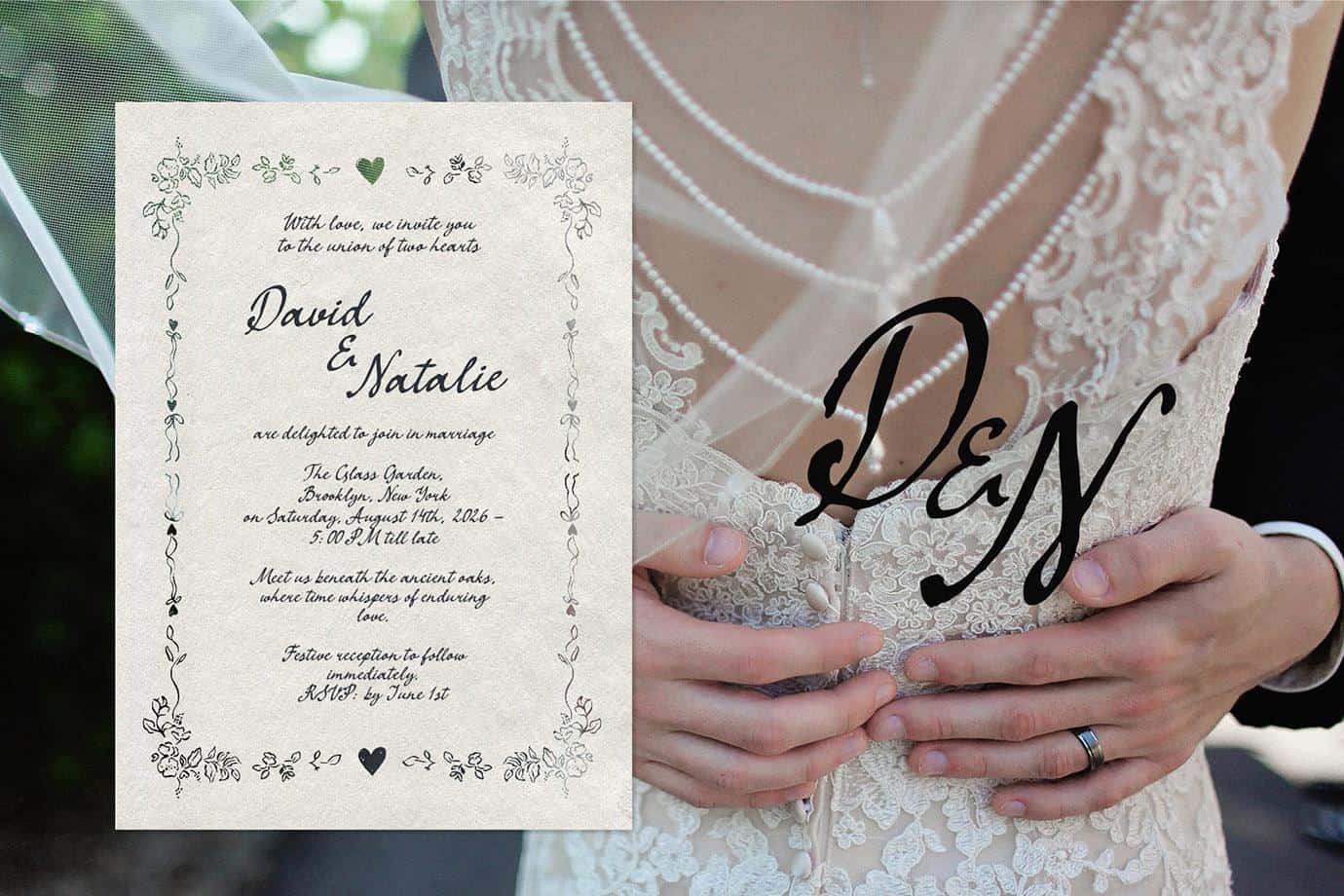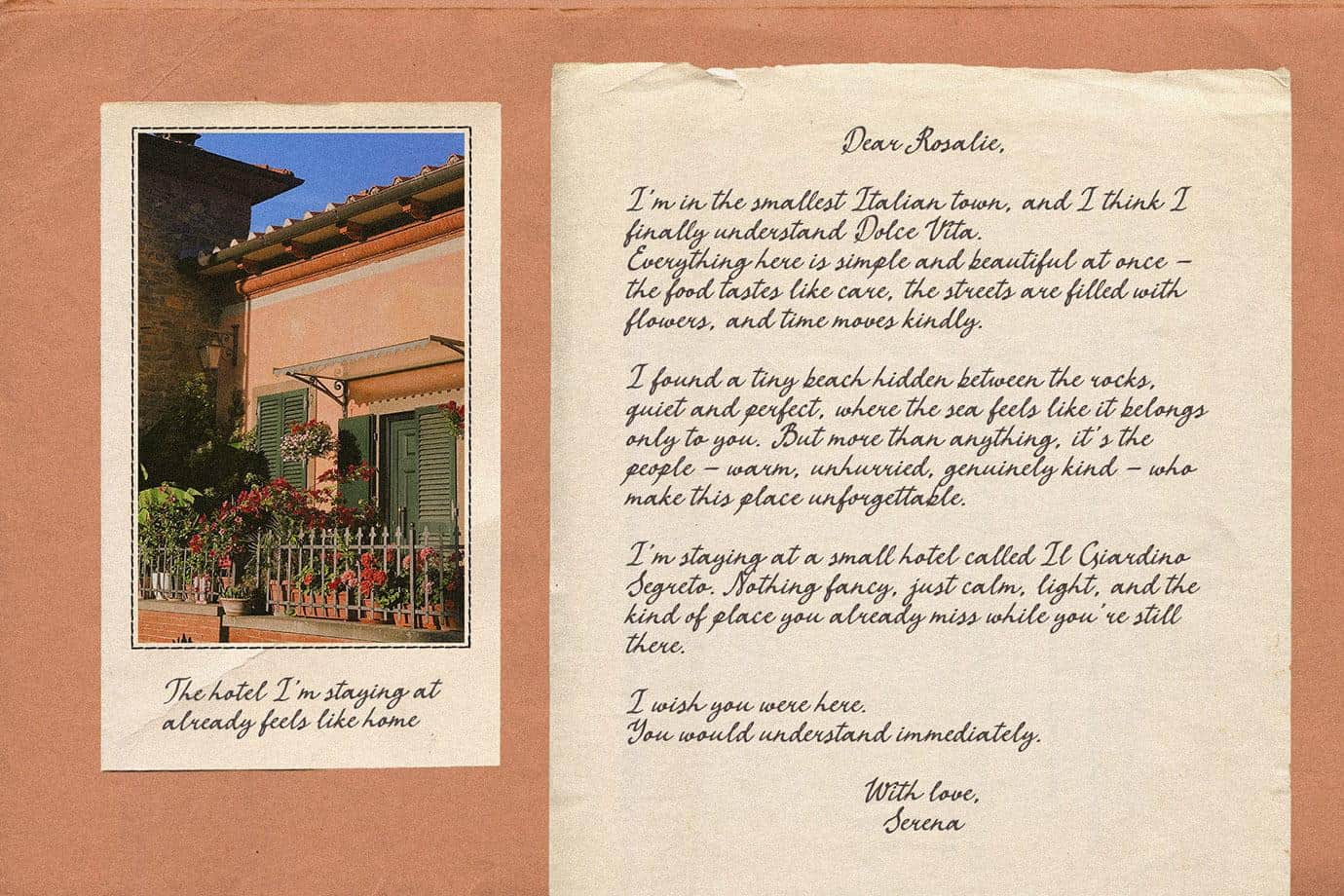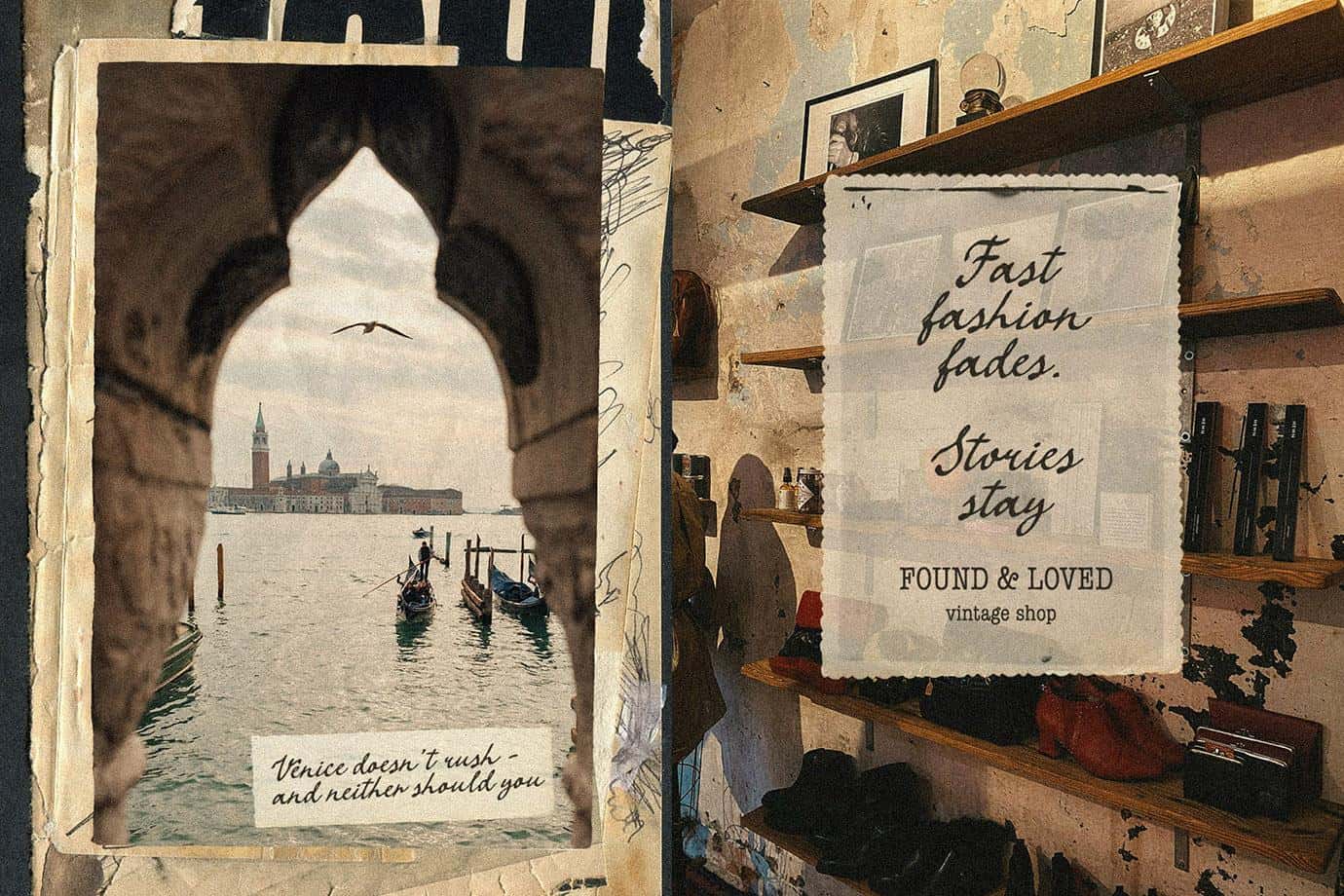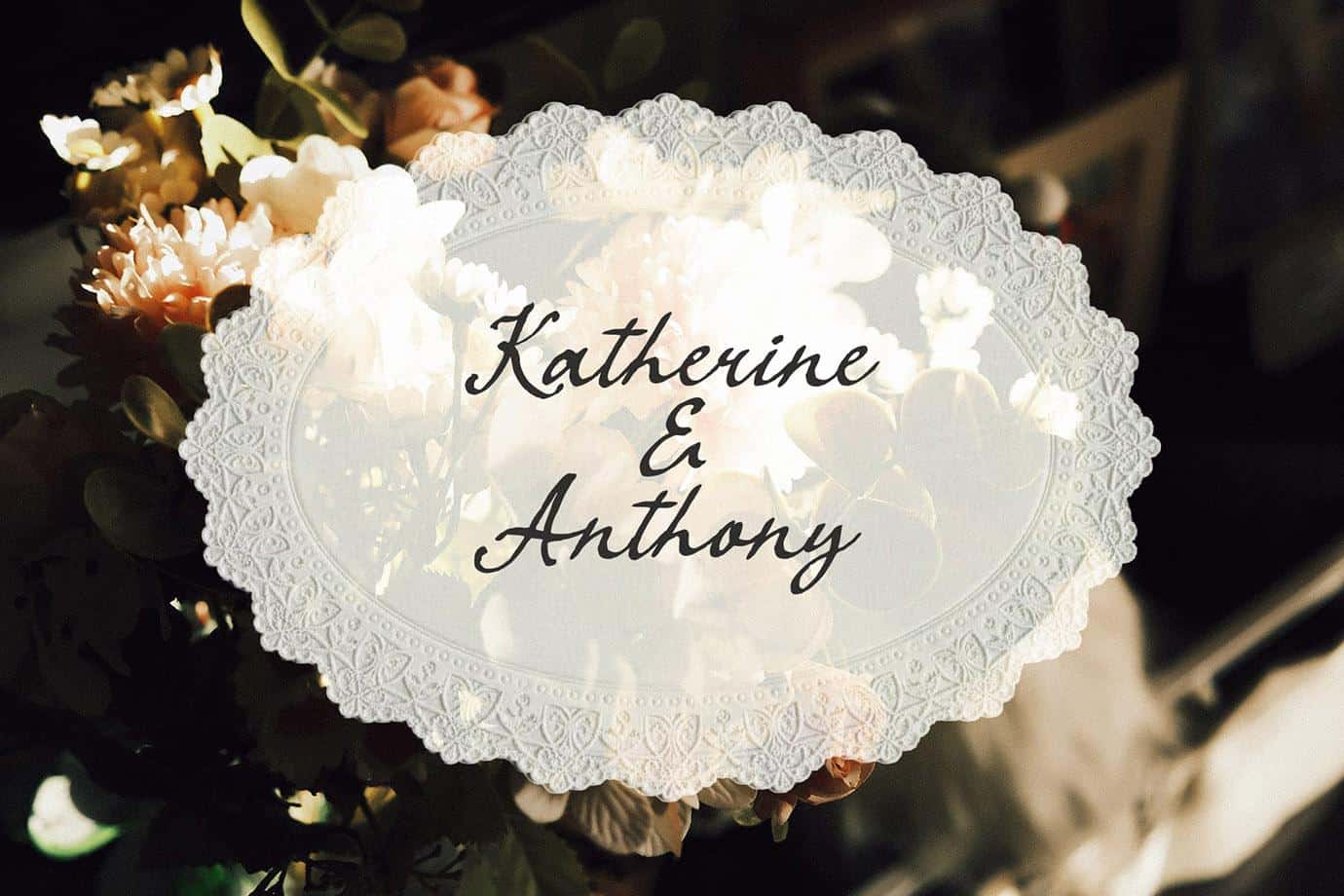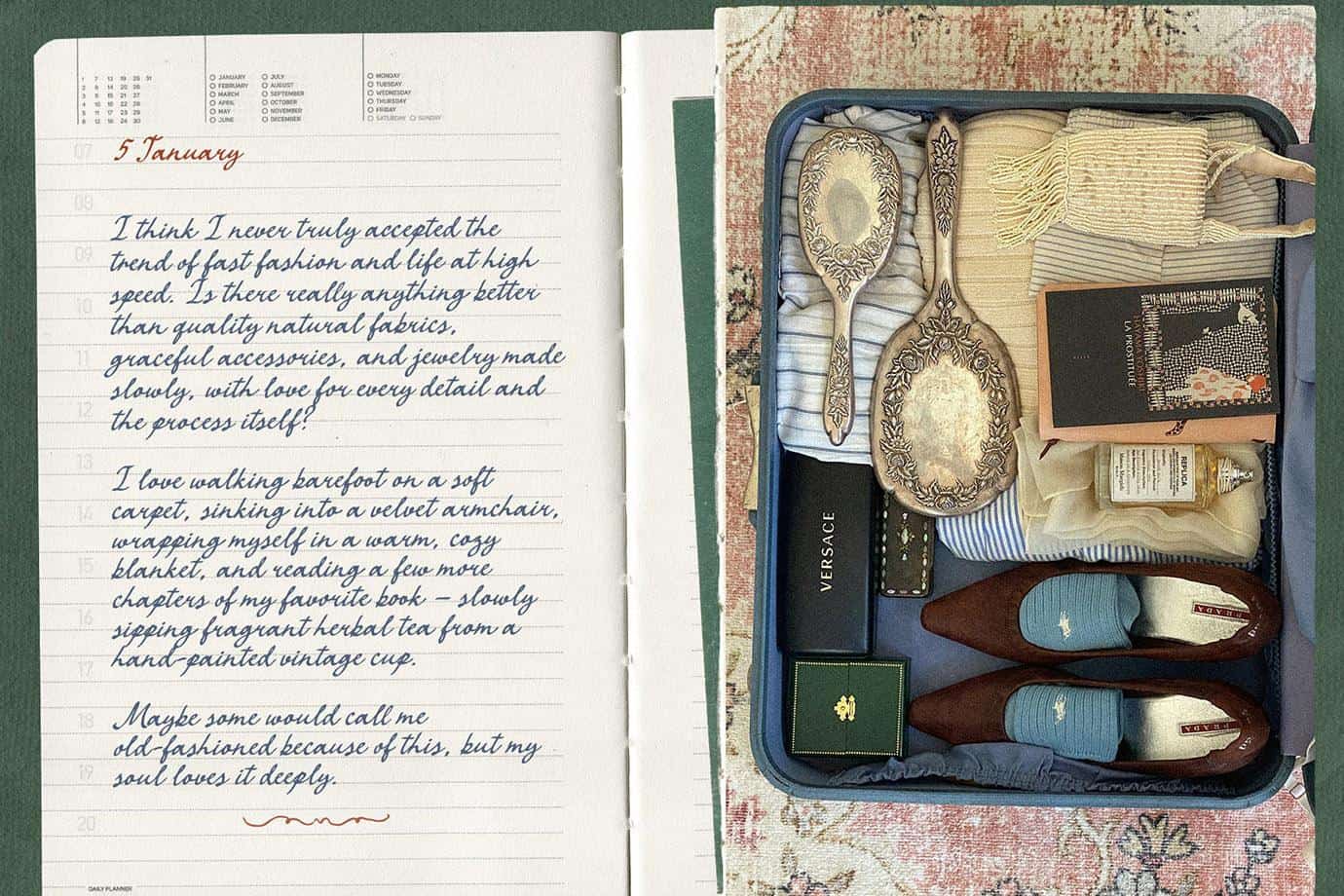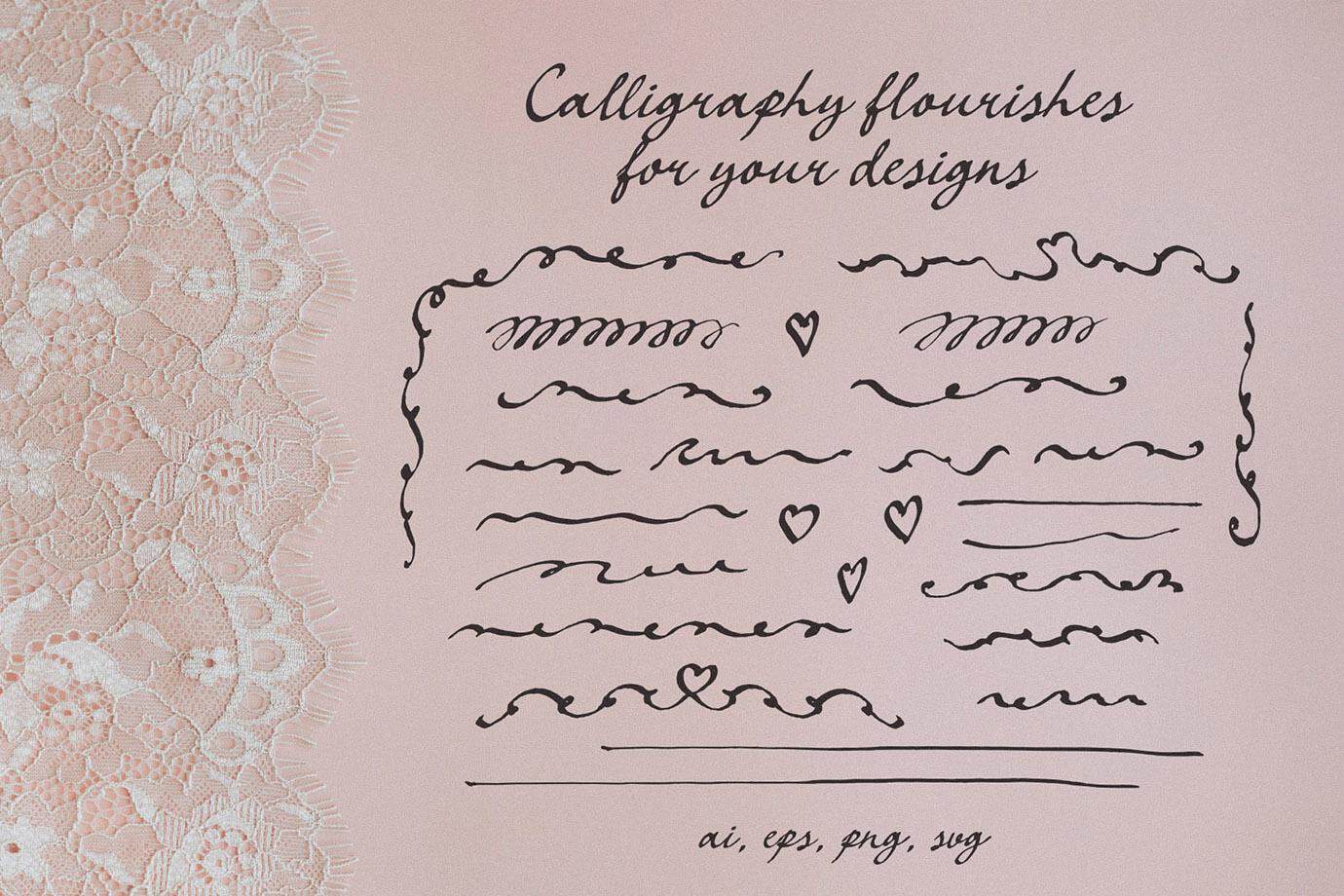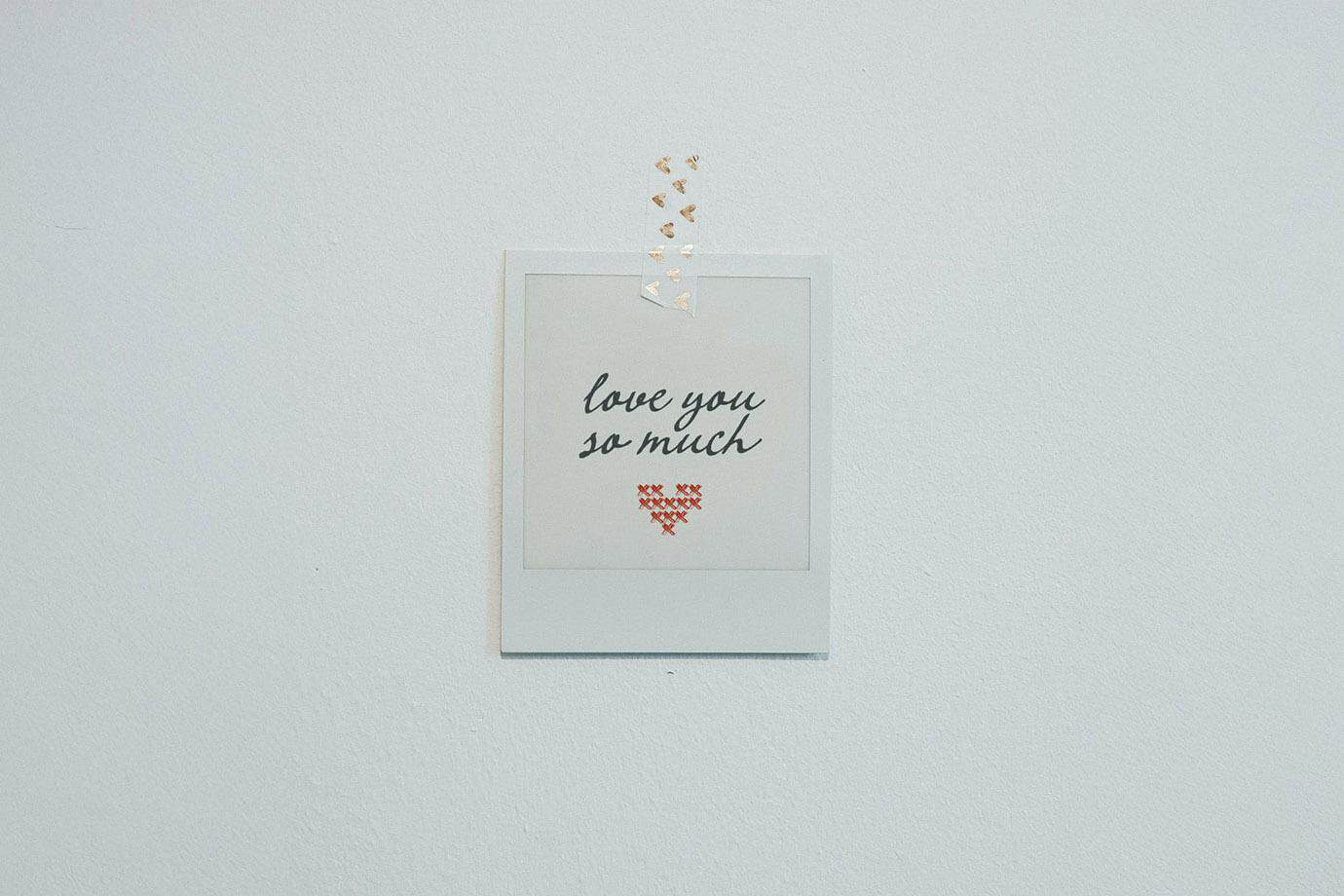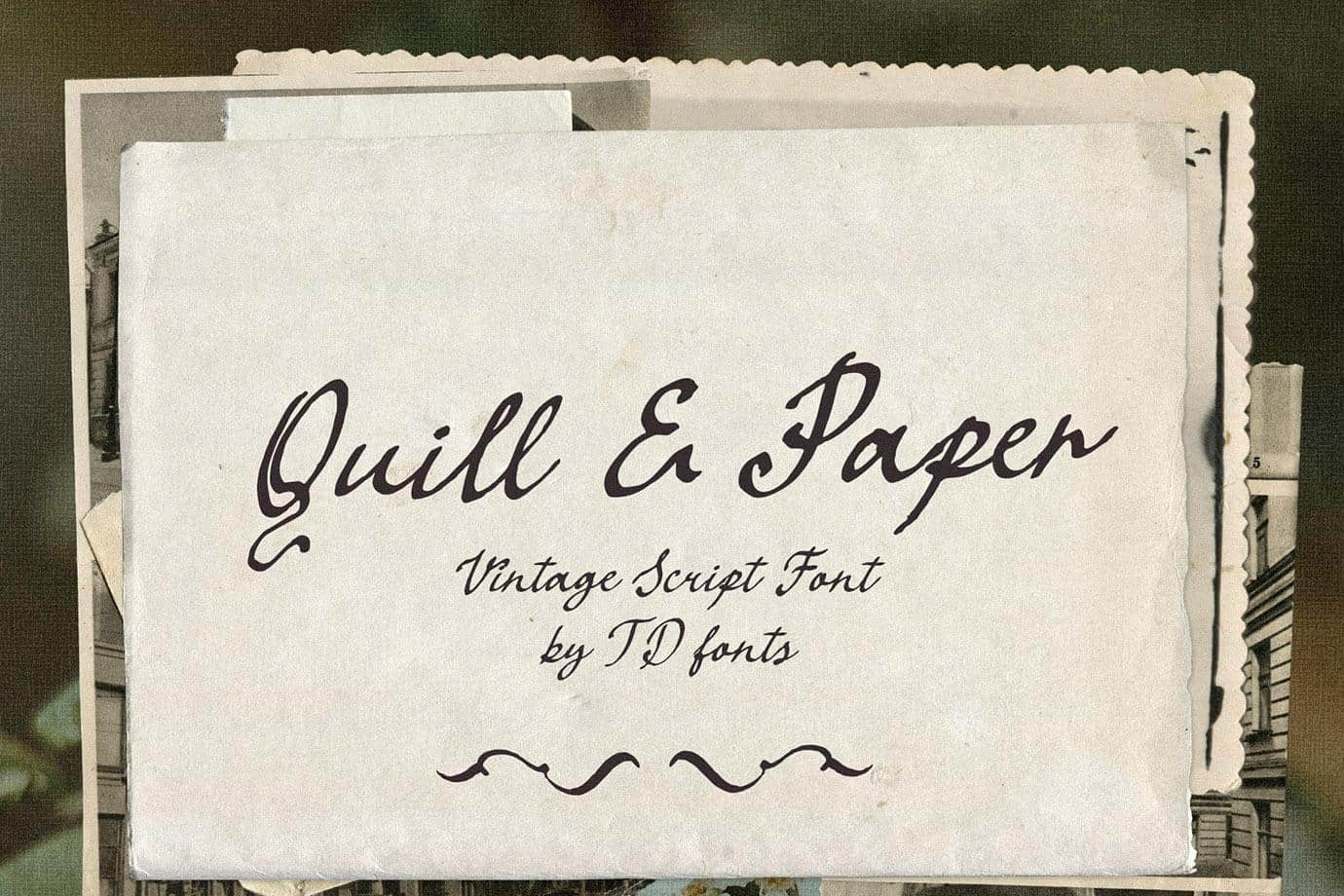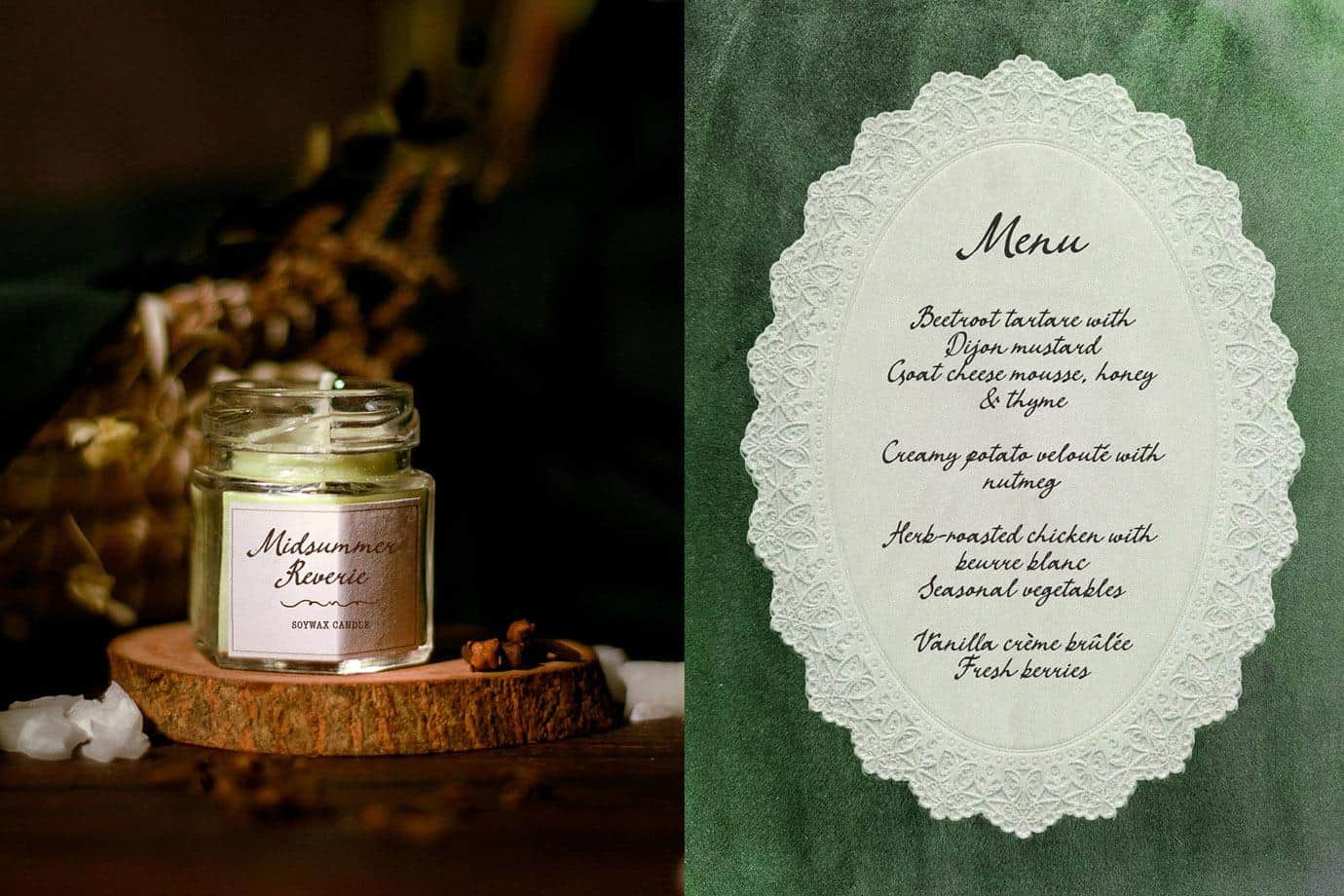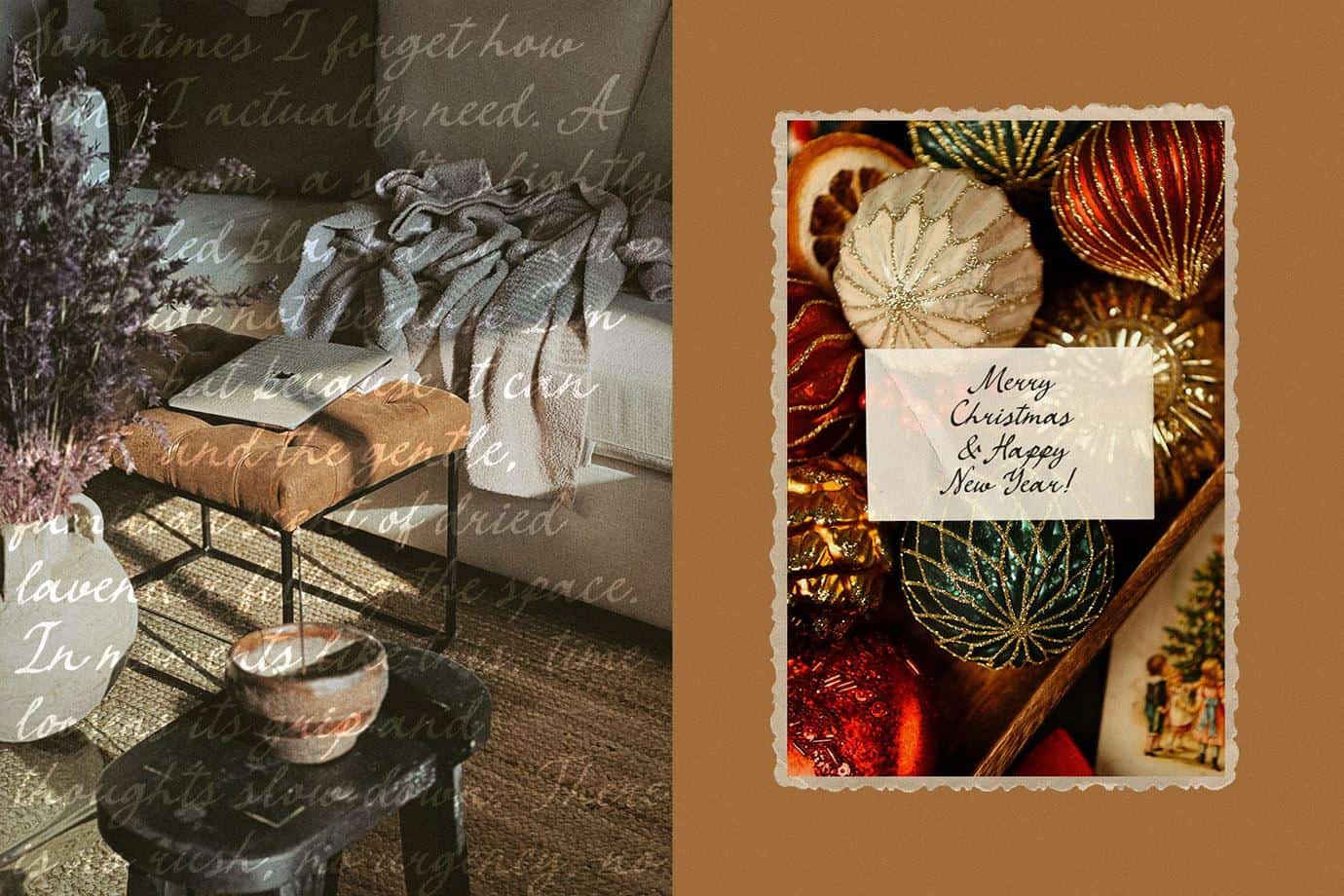
Quill & Paper — Elegant Retro Vintage Handwritten Script Font
Quill & Paper is an exquisite vintage handwritten script font, penned with real ink on paper
Quill & Paper is an exquisite vintage handwritten script font, penned with real ink on paper. Perfect for designers seeking a vintage handwritten script font with authentic texture and retro charm for wedding invitations, logos, and boutique branding.
Why Quill & Paper Will Be Your Go-To Script
This elegant script font is meticulously hand-drawn: ink flows across paper, capturing natural imperfections and pen texture, then vectorized for flawless digital use. It evokes antique love letters with a subtle slant, graceful uppercase letters, and delicate whimsical swashes. Bold enough as a bold handwritten script font for headlines, logos, and branding, yet refined and highly legible.
Quill & Paper infuses warmth, nostalgia, and personal charm into every project — from wedding invitations script font to romantic quotes and retro posters.
Perfect For
Wedding stationery: invitations, save the dates, monograms (romantic wedding calligraphy font)
Branding & logos: handwritten script font for logos, packaging, business cards
Social media & design: quotes, cards, posters, website headers
Retro & nostalgic projects: journals, stationery, boutique branding
Languages supported: English, French, German, Italian, Spanish, Portuguese, Danish, Norwegian, Swedish, Finnish, Estonian, Romansh, Turkish, Polish, Czech